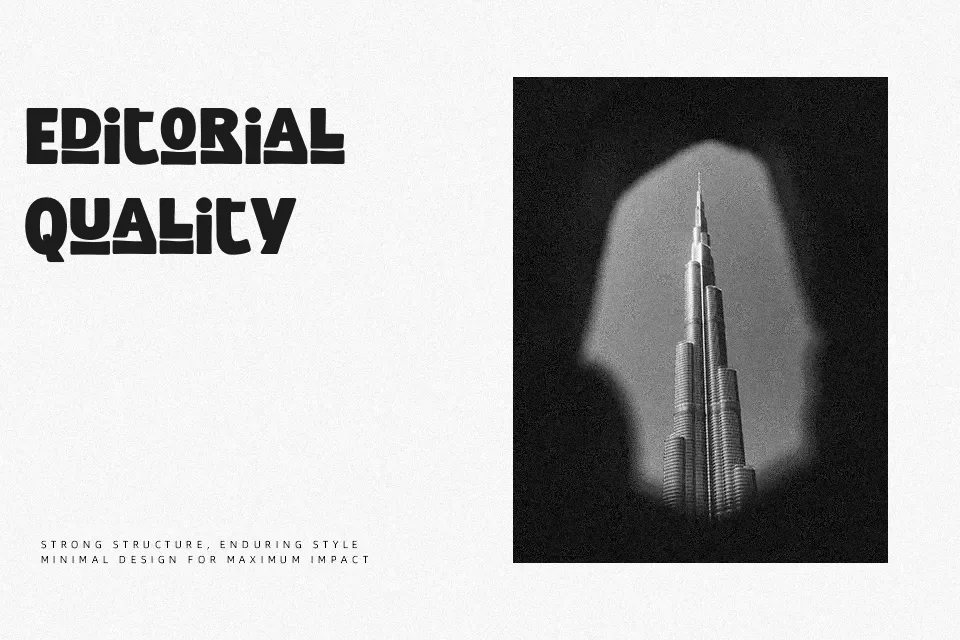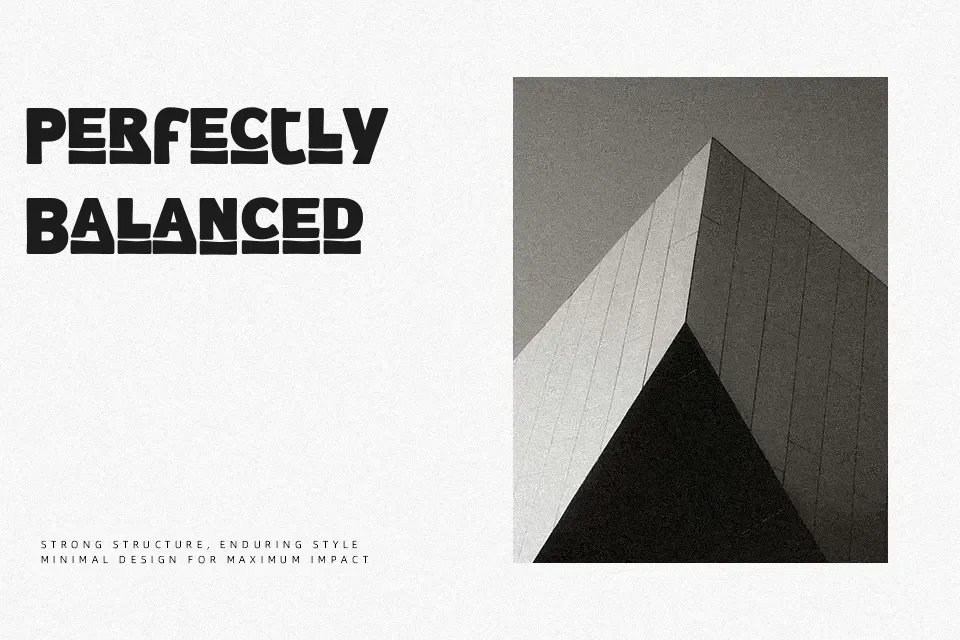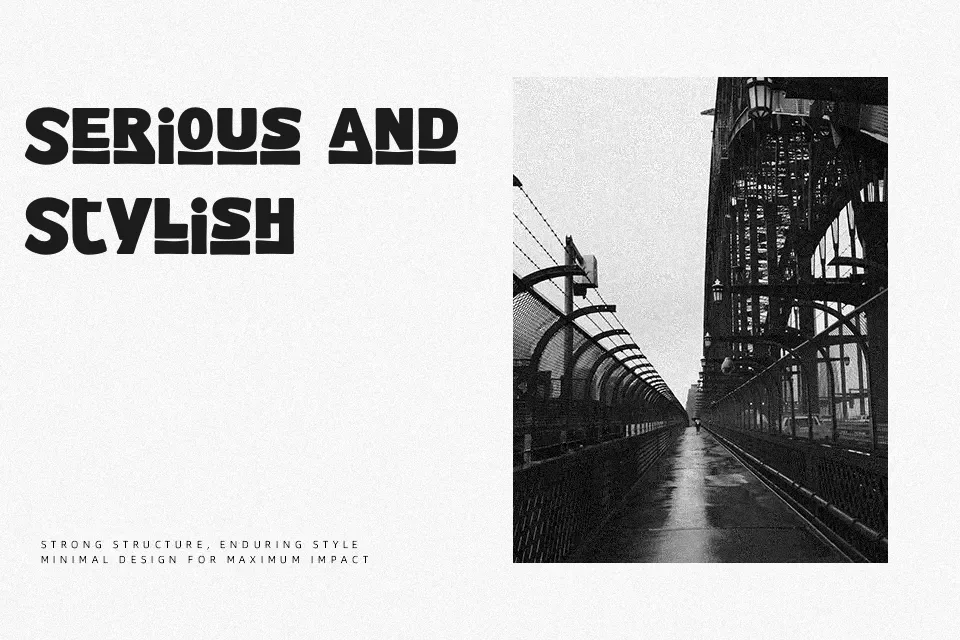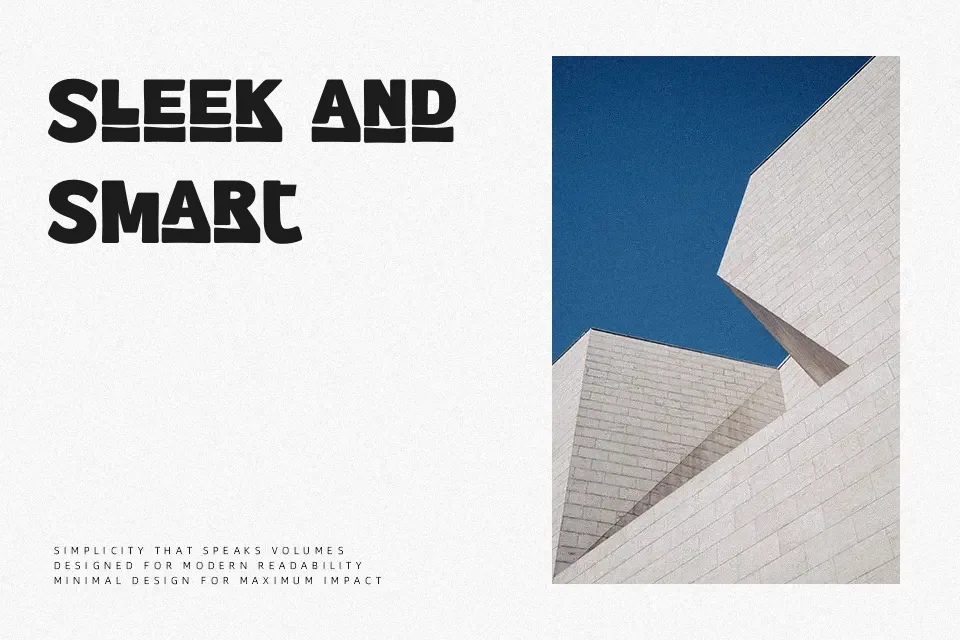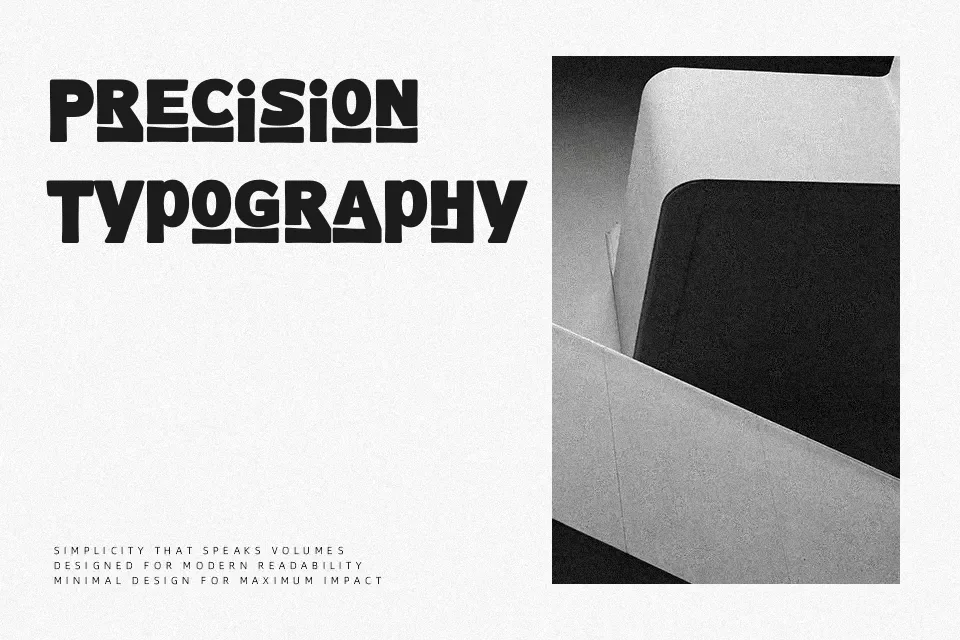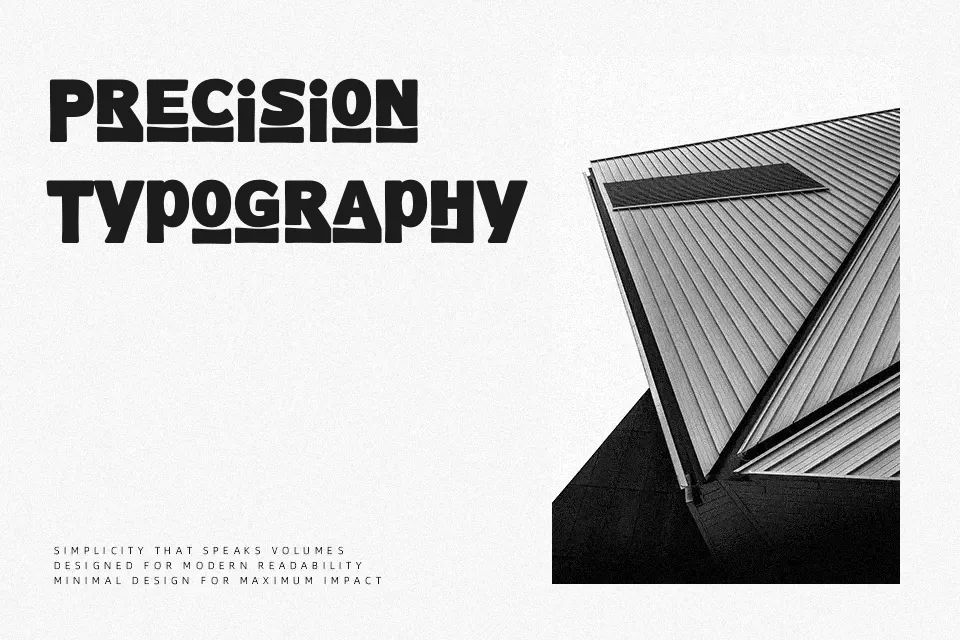
Thelamus Font
Thelamus Font delivers substantial visual authority through robust geometric letterforms designed specifically for prominent display environments. Defined by a heavy stroke style with minimal contrast, the typeface relies on broad proportions to anchor each character firmly on the baseline. Its deliberate spacing maintains a tight yet structured visual rhythm, ensuring titles remain punchy and cohesive across digital banners, music posters, and packaging labels. While the design achieves excellent readability in headline applications, dense forms reduce comfort during extended reading. The font becomes less suitable for continuous body text where internal counters tighten excessively.
Best For: music festival posters, retail packaging labels, website hero headlines, apparel merchandise graphics
Not Ideal For: continuous body text, dense technical manuals, small interface labels, legal documentation